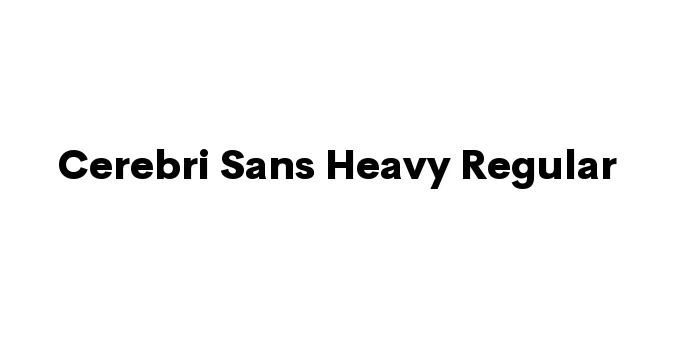
Cerebri Sans Heavy Regular
Designed by Alfredo Marco Pradil (Hanken Design Co.)
| Category | Geometric Sans Serif |
| Designer | Alfredo Marco Pradil (Hanken Design Co.) |
| Similar Fonts | Montserrat, Futura, Avenir, Gotham, Proxima Nova |
Cerebri Sans Heavy Regular is a contemporary geometric sans-serif typeface that prioritizes legibility and modern visual appeal. Designed by Alfredo Marco Pradil, the font is part of the larger Cerebri Sans family, which was developed with the specific intent of blending classic modernist proportions with the technical requirements of digital interfaces. Its clean, circular forms and subtle humanist touches make it a versatile tool for designers looking for a balance between warmth and mechanical precision.
The Heavy weight is particularly notable for its strong presence and high-impact personality. It is engineered to maintain clarity even at larger scales, making it a favorite for display typography, bold editorial headlines, and sophisticated branding projects. With an extensive character set that supports various Latin-based languages, Cerebri Sans has become a staple for UI/UX designers who require a font that feels both professional and cutting-edge in a variety of environments.
Cerebri Sans Heavy Regular Best Uses
Excellent for bold navigation bars, call-to-action buttons, and landing page headers.
Ideal for creating strong, recognizable logos and modern corporate visual identities.
Perfect for mobile interfaces where clarity and bold accents are necessary.
Works beautifully on posters, billboards, and high-end magazine layouts.